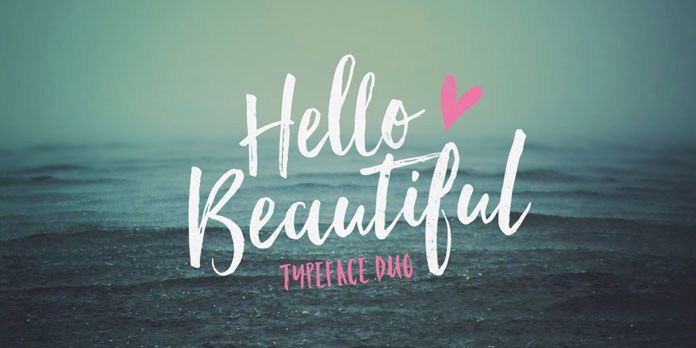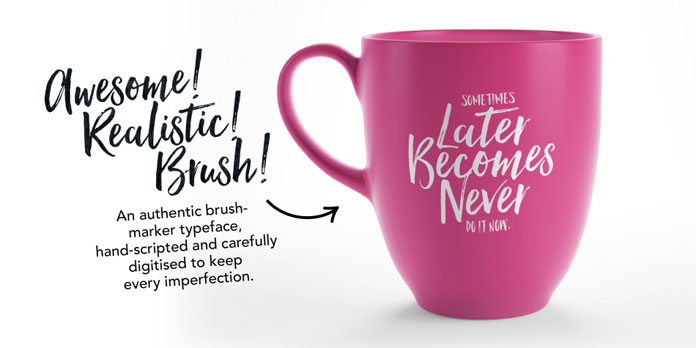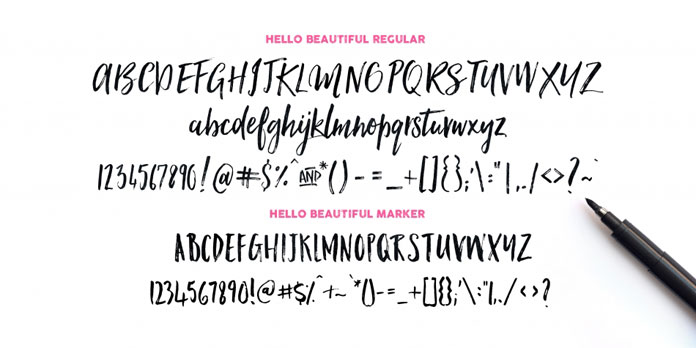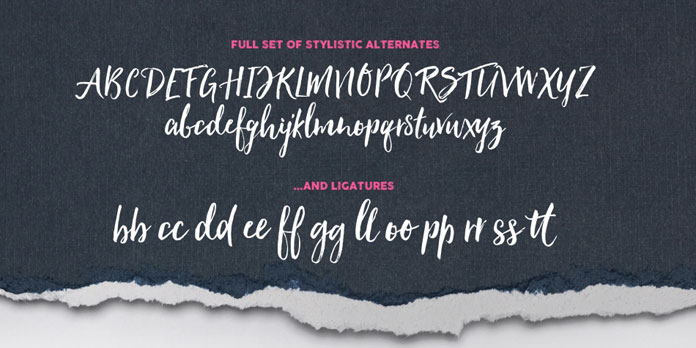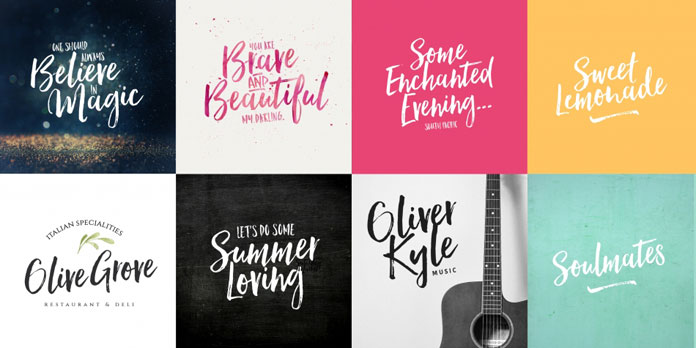
Hello Beautiful, a hand-drawn font duo by graphic and type designer Nicky Laatz.
Here comes another beautiful font from South African illustrator, graphic and type designer, Nicky Laatz. Hello Beautiful is actually a duo of typefaces comprising a regular version with both lowercase and uppercase letters as as well a sturdy “Marker” style with only uppercases. Furthermore, the set is equipped with diverse OpenType features such as alternate letters and ligatures as well as a great collection of swashes. Hello Beautiful is based on a hand drawn calligraphy style with a modern twist. Get more information below the first image click on the following link.
Both fonts are well suited for a wide range of possibilities including quotes, invitations, t-shirts, posters, etc. They were carefully designed to work together in harmony. For additional information, feel free to follow the link below.